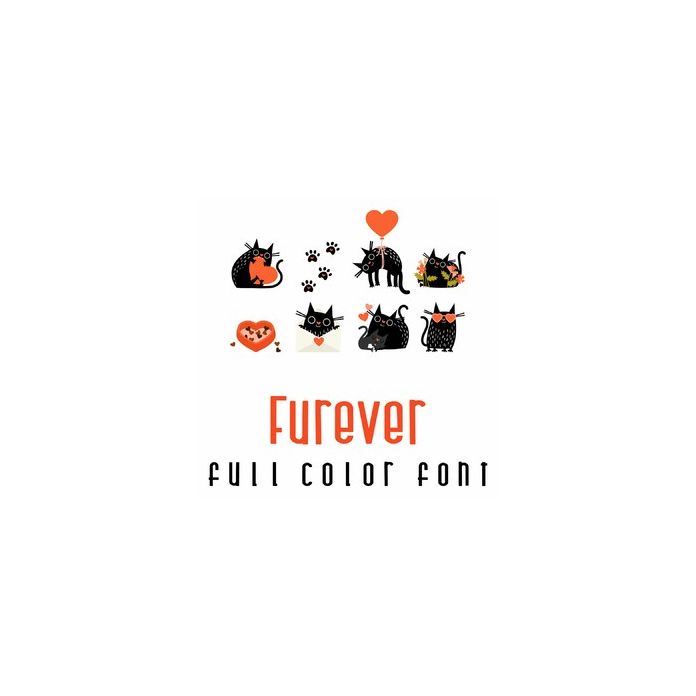
This adorable full-color doodlebat font features 26 adorable kittens ready for love. Perfect for cards, crafts, gifts, decor, scrapbook pages, planner stickers, and more!